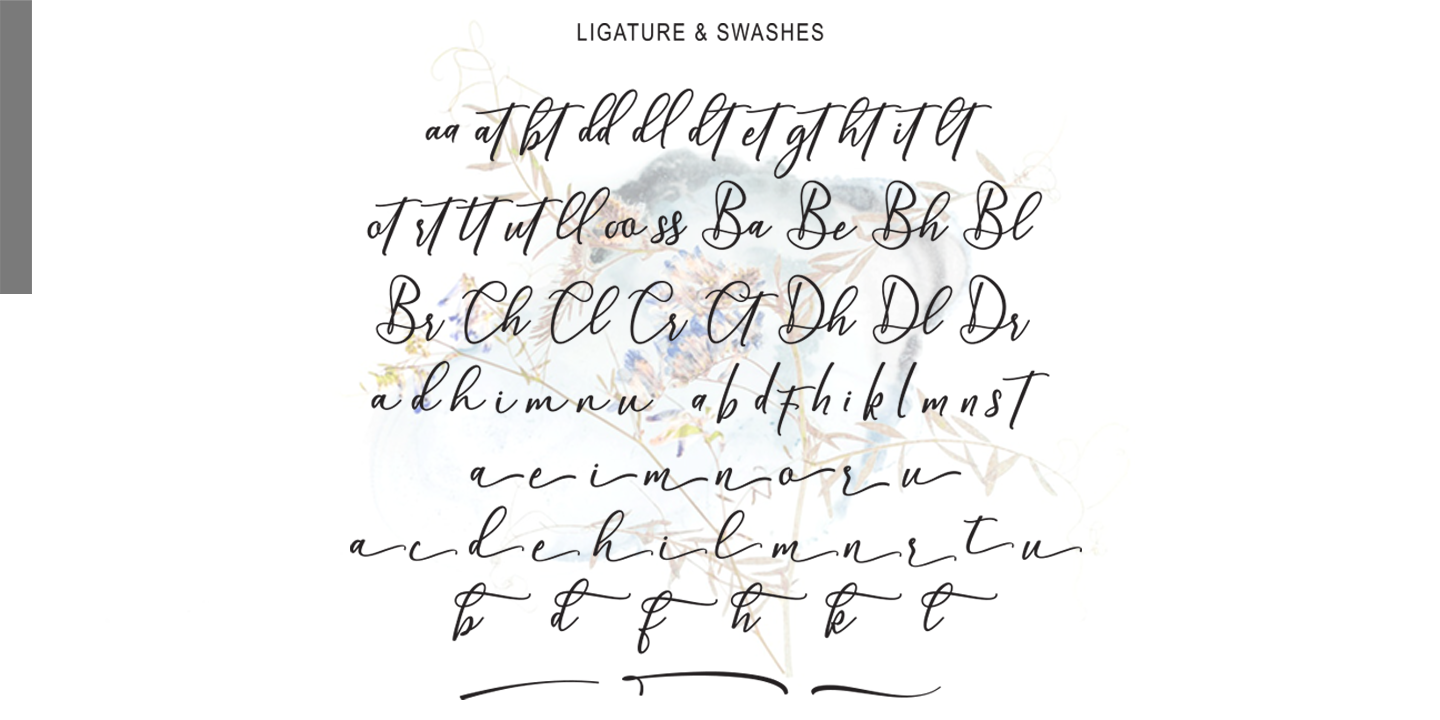
Wellington Font excels in prestigious design applications including traditional British institutions, heritage luxury brands, distinguished law firms, classical education materials, prestigious club communications, traditional menswear companies, historic property branding, parliamentary documentation, aristocratic event invitations, and establishment corporate identities. This noble typeface brings British heritage to distinguished design projects.
What makes Wellington Font truly exciting is its perfect embodiment of British institutional gravitas with refined letterforms that reflect centuries of parliamentary tradition and aristocratic elegance. The font features stately characters with distinguished proportions and authoritative presence that convey reliability, heritage, and institutional credibility. Its British character and establishment appeal make it ideal for organizations seeking to project traditional authority, institutional trust, and audiences who value heritage craftsmanship, parliamentary democracy, and the enduring strength of British institutional traditions.
The Wellington Font family typically includes multiple weights such as Regular, Medium, and Bold with potential Small Caps variations that enhance its institutional character. These distinguished options provide designers with complete establishment styling while maintaining the font's distinctive British elegance and parliamentary presentation across various heritage applications and institutional contexts.
Whether you're developing heritage brand identities, creating institutional materials, or designing traditional campaigns, Wellington Font Free Download delivers the British authority and aristocratic sophistication that establishment projects require. Its exceptional dignity and parliamentary appeal make it invaluable for designers working with traditional institutions, heritage brands, and established organizations requiring typography that honors British heritage, celebrates institutional excellence, and reflects the distinguished character of those who understand the value of tradition, parliamentary procedure, and the enduring strength of British constitutional democracy.